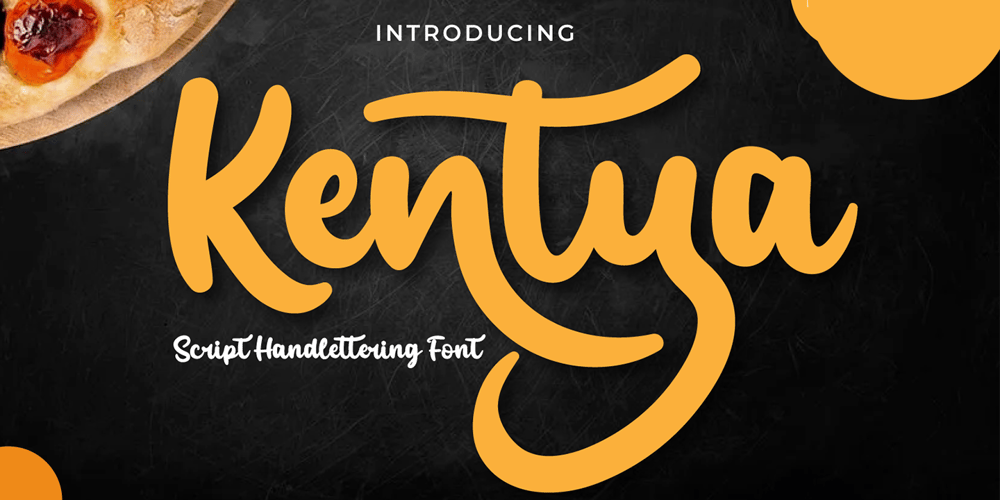
Kentya Font Family was designed by Rozikan and published by Twinletter. Kentya contains 1 styles and family package options. Introducing our newest Font, Kentya the nameThis font is made with elegant calligraphy nuances and there are so many kinds you can combine various kinds of font choices to get the beautiful writing you want, this font is also good for writing your name and trademarks and logos and words, sentences that beautiful of course with the right typography harmony.This font also offers the beauty of abstract typography harmony for a wide variety of design projects, including natural handwriting in digital form for designs, quote designs, for social media business designs, advertisements, trademarks, promotional banners, posts, posters, signatures, and all. the design requires handwriting or whatever design you want.This font is equipped with uppercase, lowercase, numbers, punctuation marks, swhases and several variations on each character including multi-language.==================================================This font is best suited for open type friendly applications. How to get alternative glyphs from open type fonts: http://adobe.ly/1m1fn4YPUA Character Code – Fully accessible without additional design software.do not hesitate anymore start using this font. and Feel free to send any message you want to convey.